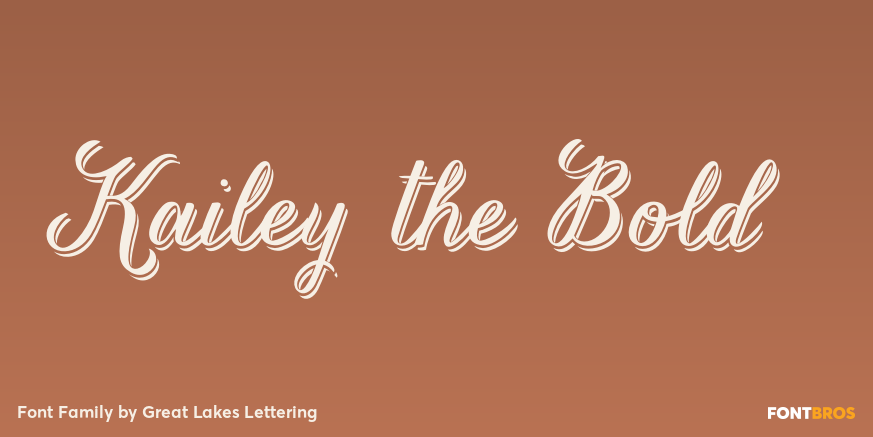
About Kailey the Bold
Kailey font is a hand lettered, voluptuous typeface that is very special to the Great Lakes Lettering team. This oblique font is inspired by Molly Jacques? \’signature? lettering style, using bold brush strokes, fluid flourishes, and distinctive characters.…